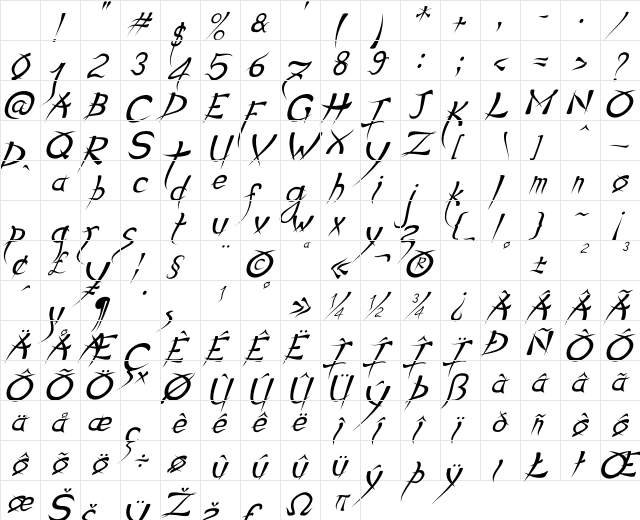
Complete Psycho Italic glyph index. Displaying only characters natively supported by Psycho Italic font.
Psycho is a composed and adaptable typeface that performs quietly and consistently across a wide range of design contexts. The slanted form adds forward momentum and visual energy.
Pro Tip: Use Psycho for emphasis, pull quotes, and subheadings where its slanted energy can add rhythm to the layout.